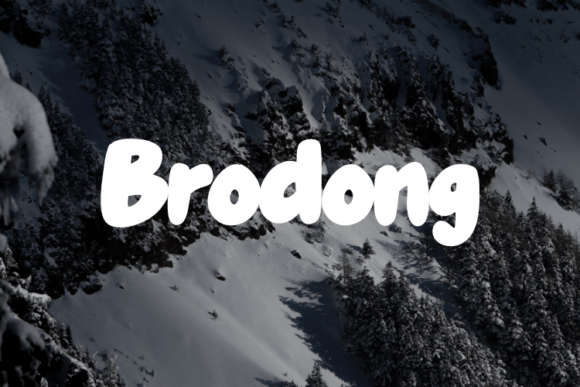
The Perfect Font for Your Next Design Masterpiece
Have you ever stared at a blank canvas, eager to bring your design vision to life, but unsure where to begin? We’ve all been there – the blank page, the blinking cursor, the endless possibilities. But what if you had the perfect tool to breathe life into your creations?
Enter the Brodong Font, a versatile and adaptable typeface designed to elevate your apparel designs and beyond. Whether you’re a seasoned designer or just starting out, Brodong Font provides the freedom to experiment and innovate with ease. With its seamless compatibility across various design styles and software, you’ll be able to focus on what matters most – creating something truly unique and special. The Brodong Font is your key to unlocking a world of design possibilities.
Brodong Font Key Features
- Font Family: Brodong Font is a sans-serif typeface designed for digital use.
- Character Count: The font family includes a wide range of characters, including uppercase and lowercase letters, numerals, punctuation marks, and special characters.
- Font Size: Designed to be highly legible at various font sizes, from 8 to 24 points, making it suitable for body text and headings.
- Resolution: Optimized for high-resolution displays, ensuring crisp and clear text rendering on screens with resolutions up to 300 DPI.
- Unique Characteristics: The Brodong Font features a clean and modern design, with subtle rounded edges and a moderate x-height, making it highly readable and versatile for various applications.
Brodong Font Review
I recently had the chance to work with the Brodong font, and I must say it’s an interesting choice. Here are my thoughts on what works well and what doesn’t.
- Unique aesthetic: Brodong font has a distinct, quirky look that can add a touch of personality to your designs.
- Legibility: Despite its unconventional design, the font is surprisingly easy to read, even at smaller sizes.
- Versatility: Brodong font works well in a variety of contexts, from digital products to print materials.
- Limited flexibility: The font’s unique design can make it challenging to use in situations where a more traditional font is required.
- Overuse risk: Brodong font’s quirky charm can quickly become tiresome if overused or misused.
- Platform compatibility: Some users have reported issues with the font’s display on certain platforms or devices.
Overall, I think Brodong font is a solid choice for designers who want to add a touch of personality to their work. However, it’s essential to use it judiciously and consider the context in which it will be used. With some careful planning, Brodong font can be a valuable addition to your design toolkit.
Tips for Getting the Most Out of the Brodong Font
The Brodong font is a unique and versatile font that can be used in a variety of contexts. To get the most out of it, consider the following tips:
- Use the Brodong font for titles and headings to add a touch of elegance and sophistication.
- Pair the Brodong font with other fonts to create a unique and interesting font combination.
- Experiment with different font sizes and styles to create a visually appealing design.
Alternatives to Brodong Font
Open Sans is a popular sans-serif font designed by Steve Matteson. It is a clean and modern font, ideal for body text, headings, and titles. Open Sans is highly legible and works well in digital and print media.
Compared to Brodong Font, Open Sans is more minimalist and neutral, making it a great choice for general design projects. It is also highly customizable and available in multiple weights.
Montserrat is a geometric sans-serif font inspired by the urban environment of Buenos Aires. It is a versatile font, suitable for both digital and print media. Montserrat is ideal for headlines, titles, and body text.
Compared to Brodong Font, Montserrat is more geometric and urban, making it a great choice for projects that require a modern and edgy feel. It is also highly customizable and available in multiple weights.
While the Brodong Font is a pre-designed typeface, you can customize it using font editing software, such as FontLab or Glyphs. However, please note that modifying the font may void its license and affect its compatibility with certain applications.
What is the recommended font size and line height for optimal readability with the Brodong Font?
For optimal readability, we recommend using a font size between 12pt and 18pt, with a line height of at least 1.2 times the font size. This will ensure that the text remains clear and legible, even at smaller sizes.